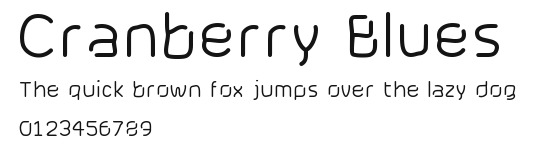
Cranberry Blues.ttf is a modern, elegant sans-serif font designed for ultimate readability and visual harmony. Perfect for branding, headlines, web design, and print materials.